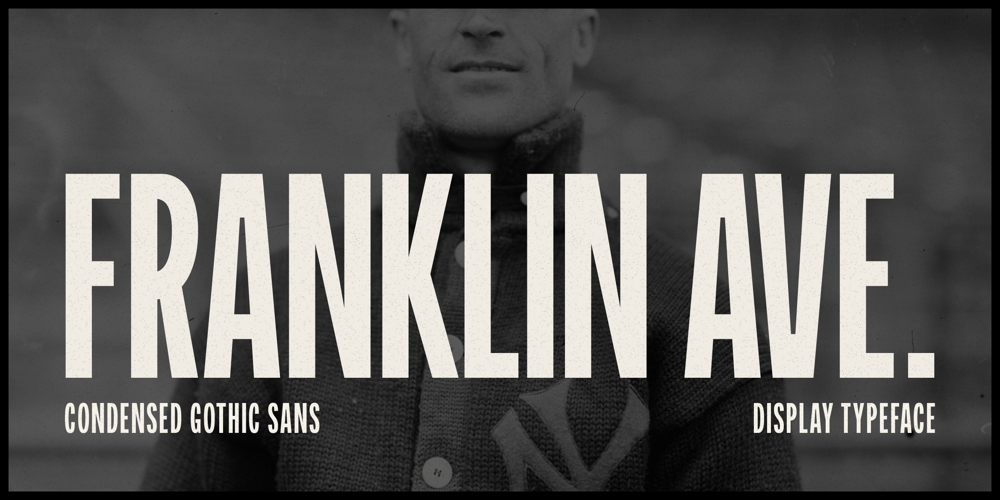
GS Franklin Ave.
GS Franklin Ave. font
GS Franklin Ave. Font Family was designed by Daniel Feldt and published by Great Scott. GS Franklin Ave. contains 2 styles and family package options. Franklin Ave. is a condensed sans serif in the style of the classics Franklin Gothic and News Gothic. Nostalgic and gives a great vintage feel. It’s bold and comes in two styles: Regular and Oblique. Franklin Ave. is best used in headlines and large formats or in logos or branding.